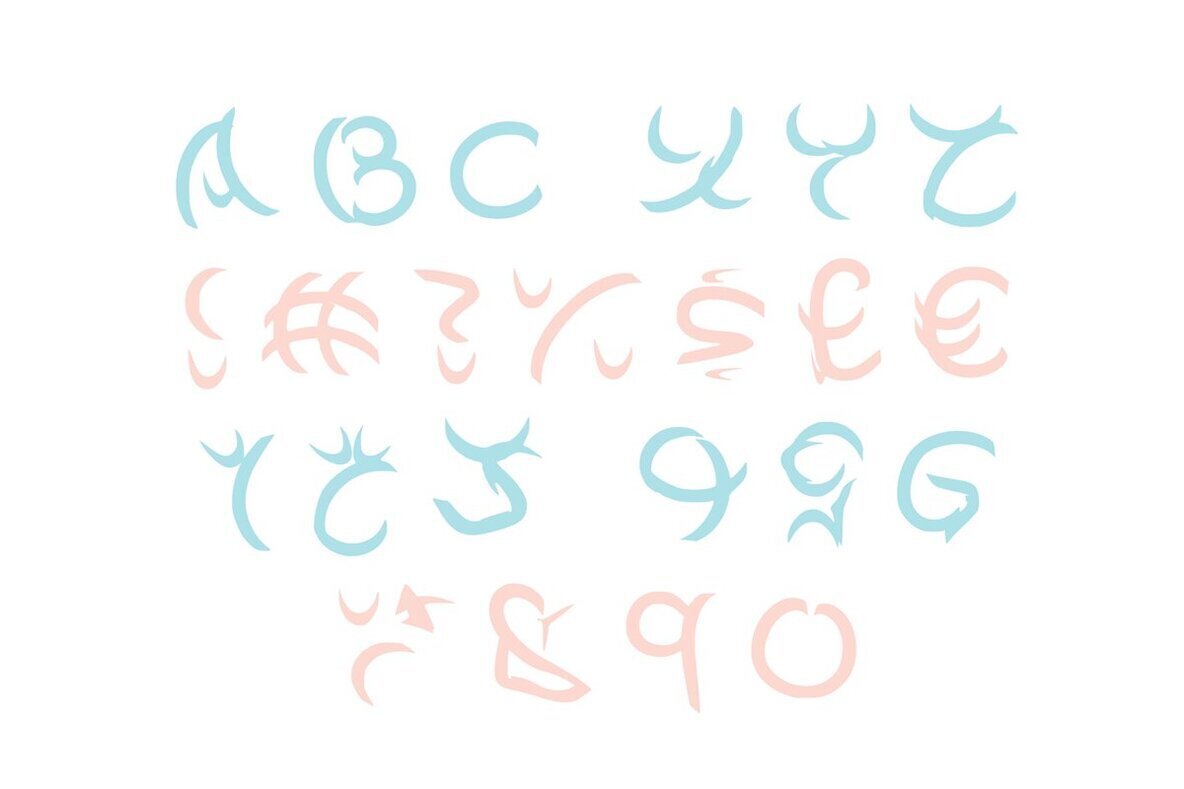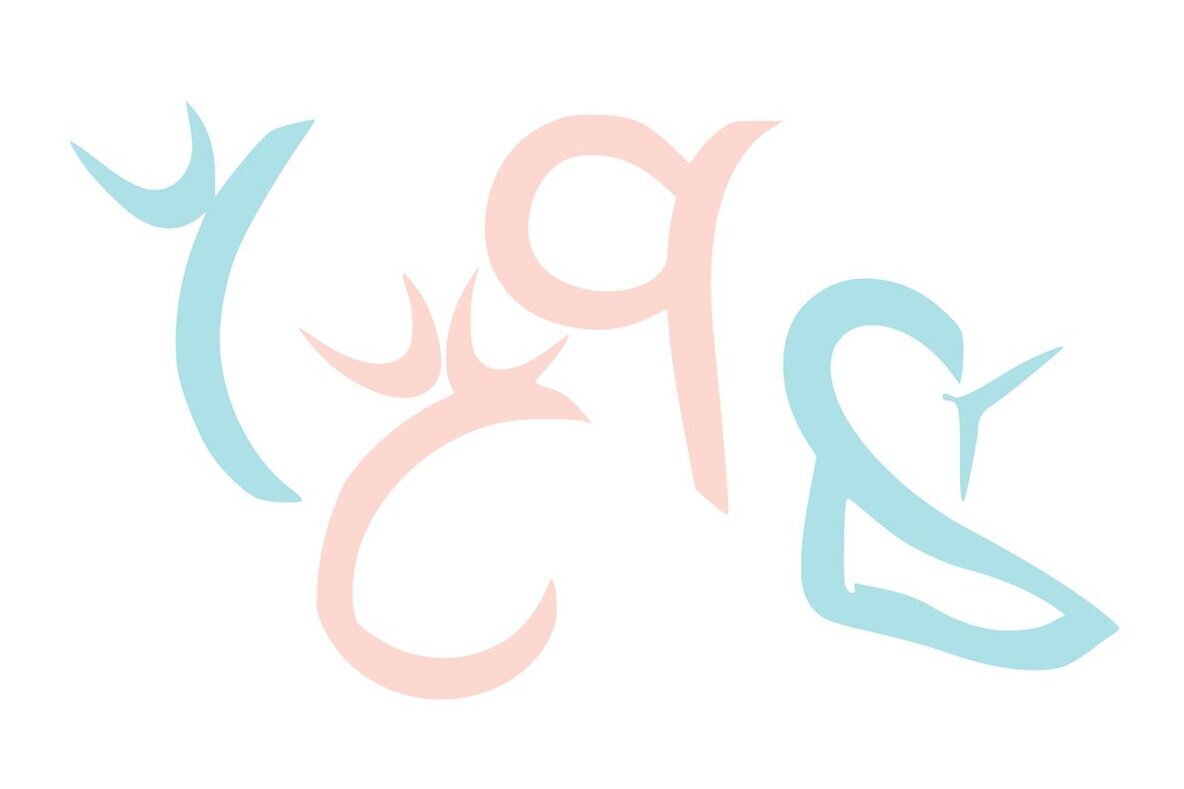
Dancing Ladies 1
Dancing Ladies is a fun display font based on strange movements of dancers. Add a playful touch to your designs with this unique font!